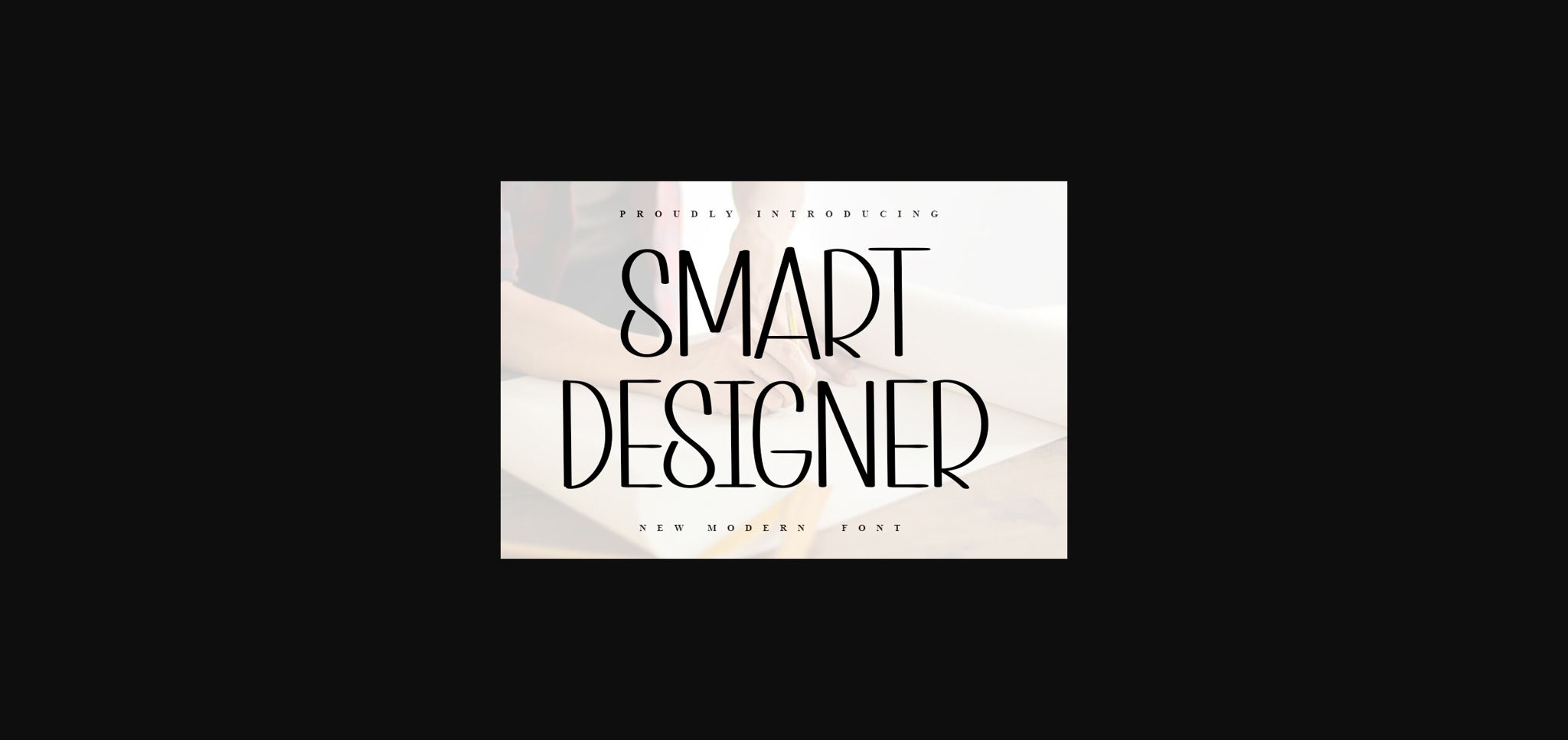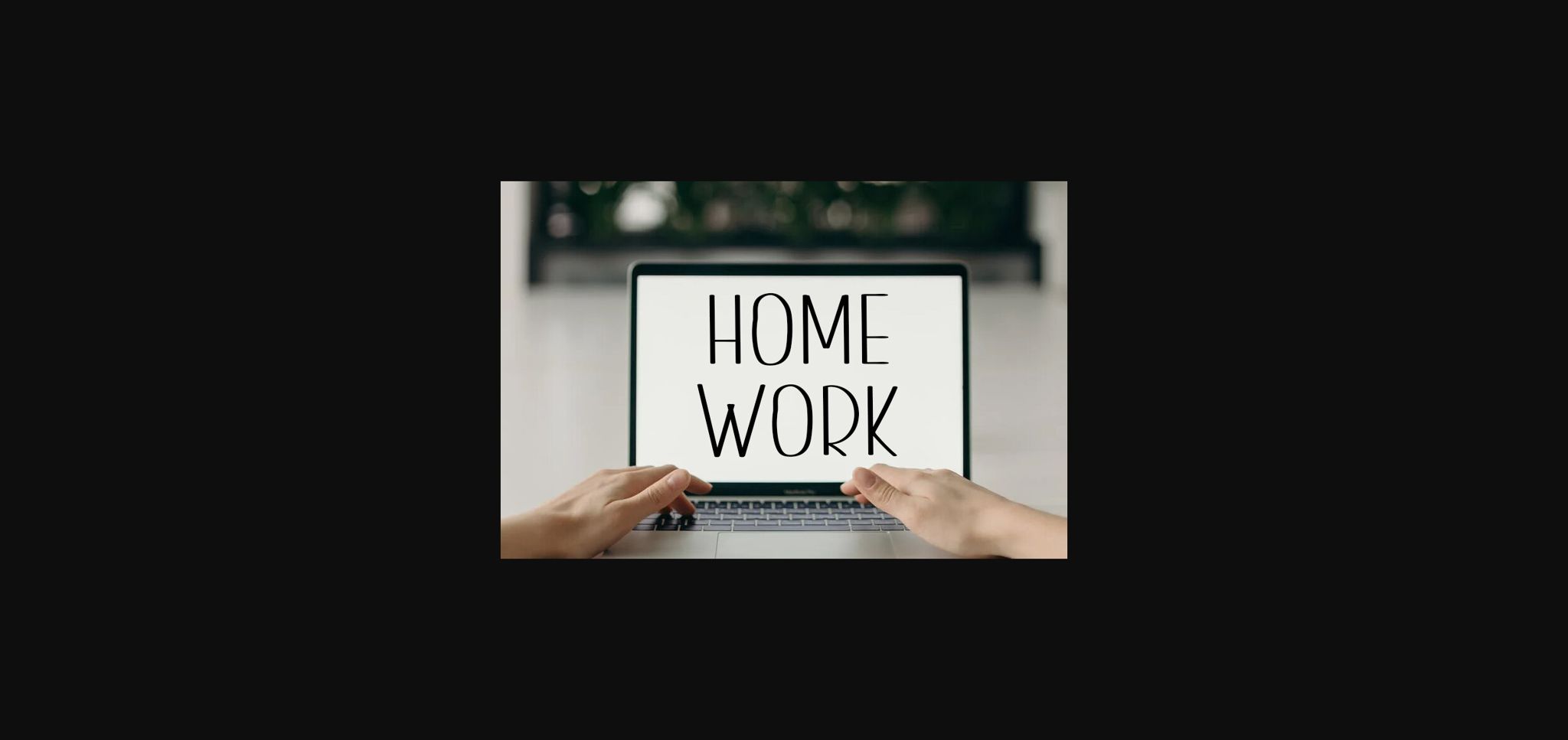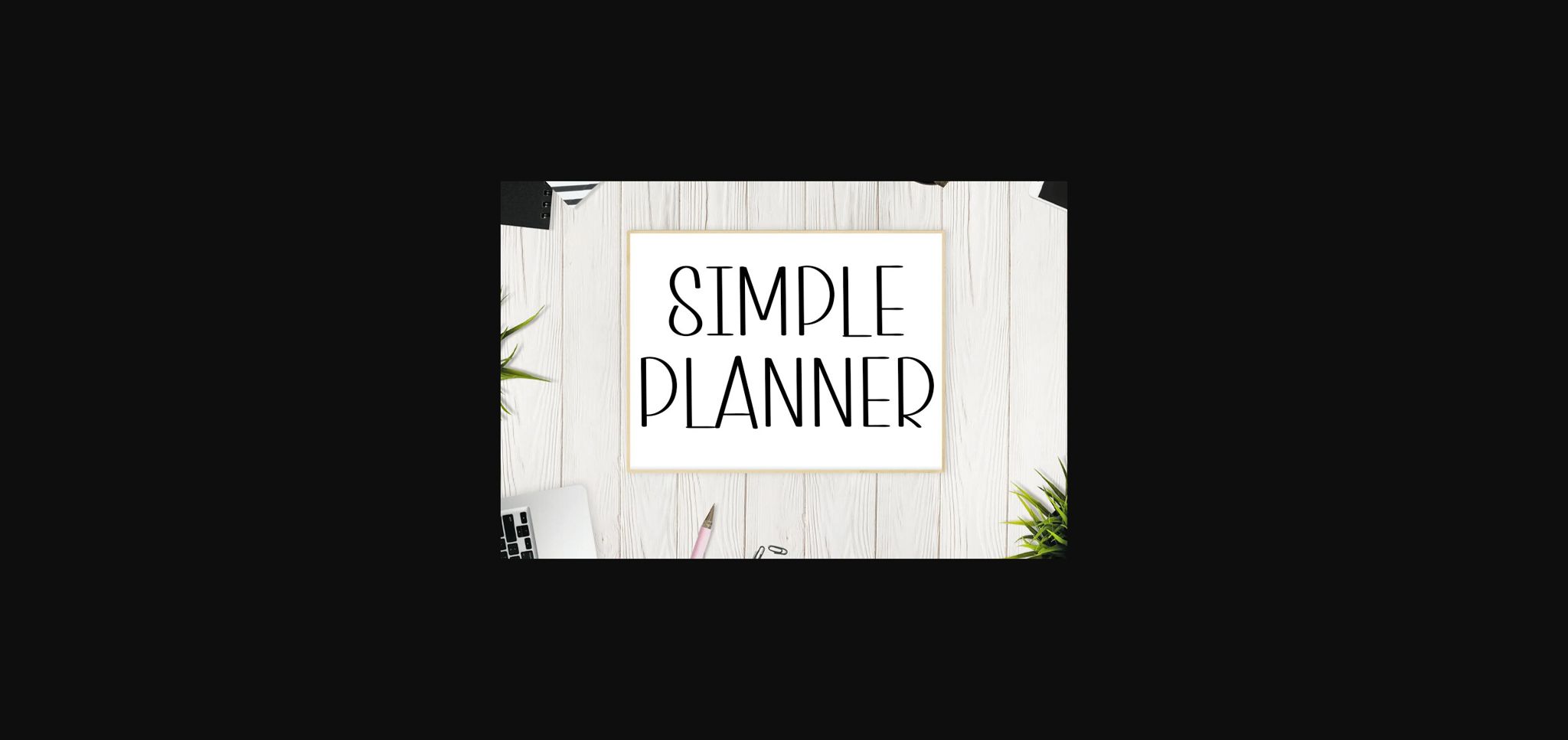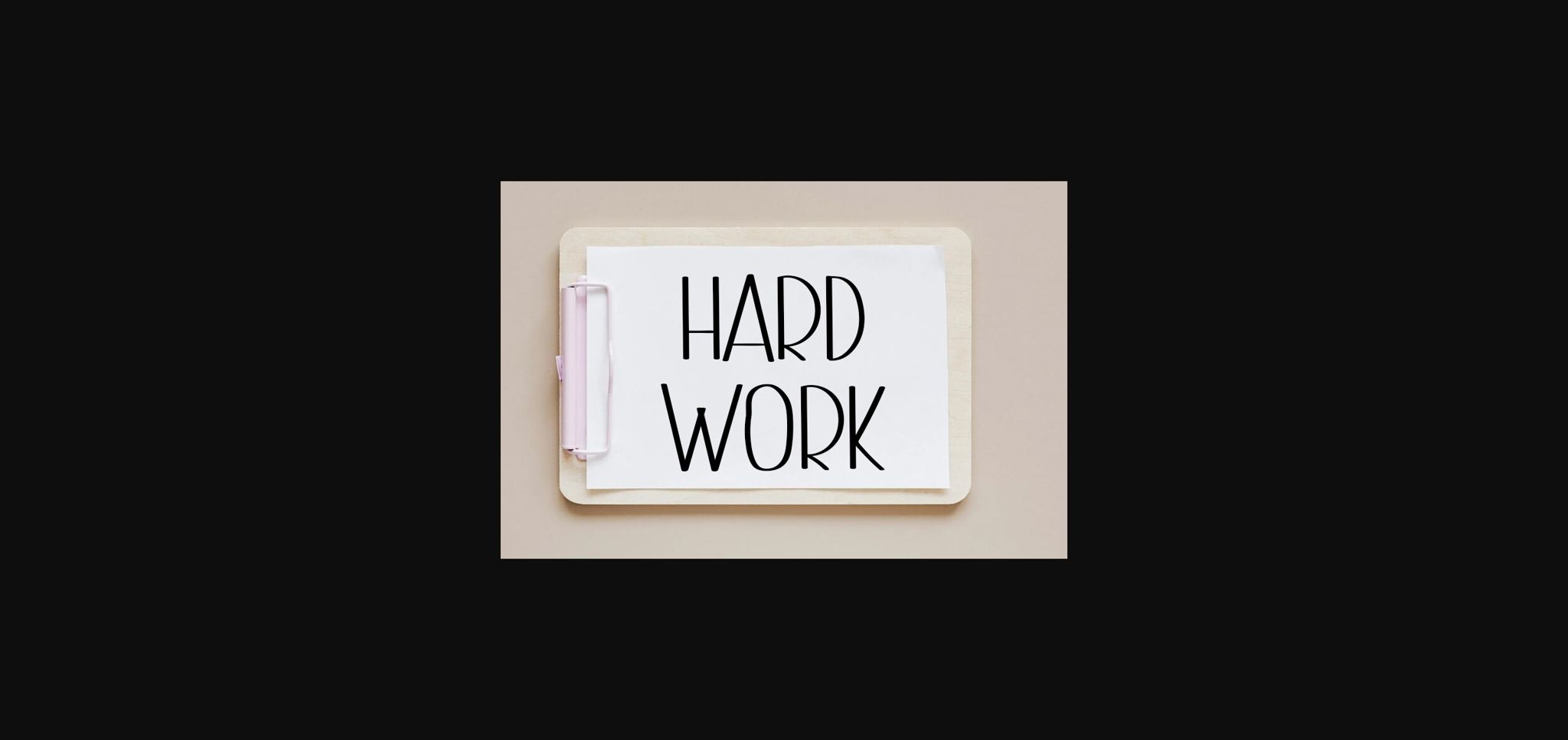
HomeSans Serif FontsSmart Designer Font Sans Serif Fonts Smart Designer Font FacebookXPinterestWhatsApp 1 of 7 ... Smart Designer Font Poster 2... Smart Designer Font Poster 3... Smart Designer Font Poster 4... Smart Designer Font Poster 5... Smart Designer Font Poster 6... Smart Designer Font Poster 7... About Smart Designer Font Smart Designer is a fun and fresh sans-serif font. Add it to your creative projects and enjoy the results! DOWNLOAD NOW People also explored Simply Brand Font Blackent Font Mountecarlo Font Samantha Upright Script Font Luisha Font Bray Notes Font Great Grandpa Font Bayfield Road Font Blessed Efforts Font 272 0 TagsSmart Designer Font Previous articleVintage FontNext articleBagoes Font LEAVE A REPLY Cancel reply Comment: Please enter your comment! Name:* Please enter your name here Email:* You have entered an incorrect email address! Please enter your email address here Website: Save my name, email, and website in this browser for the next time I comment. Personal Use Free Kidly Personal Use Free Read more about this font Crack Man Personal Use Free Read more about this font Micahel Personal Use Free Read more about this font Autumn Flowers Font Personal Use Free Read more about this font BLOG Using Fonts in Digital Marketing: Tips to Strengthen Your Brand Identity In the realm of digital marketing, every visual element plays a crucial role in shaping a brand's identity, and fonts are no exception. The... Modern Sans-Serif Fonts That Brands Love in 2025 How to Cut Any Font on Cricut: Convert a Font to SVG (Free) How to Install and Use Fonts on Windows, macOS, and Web Projects